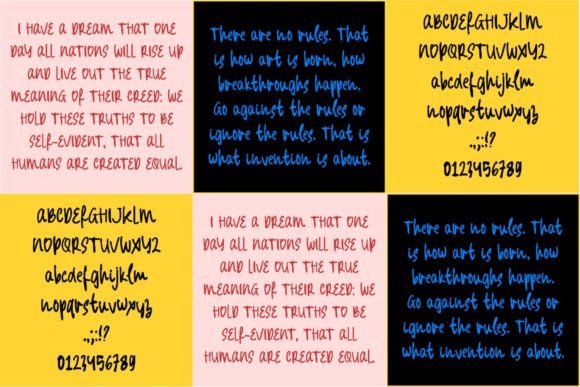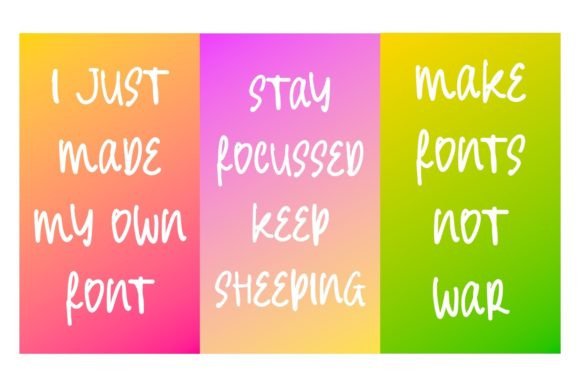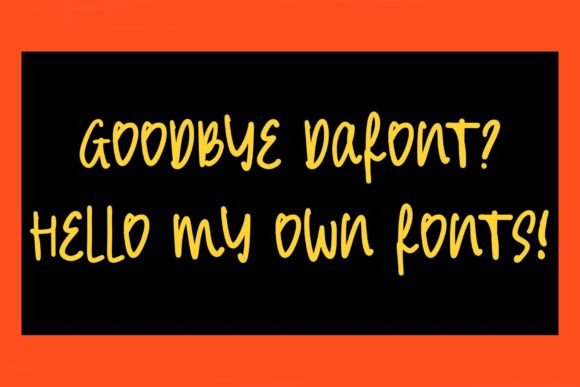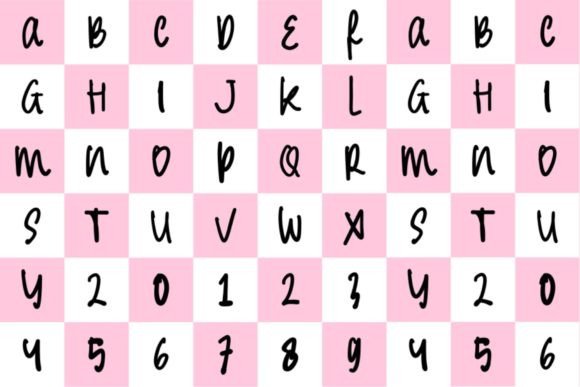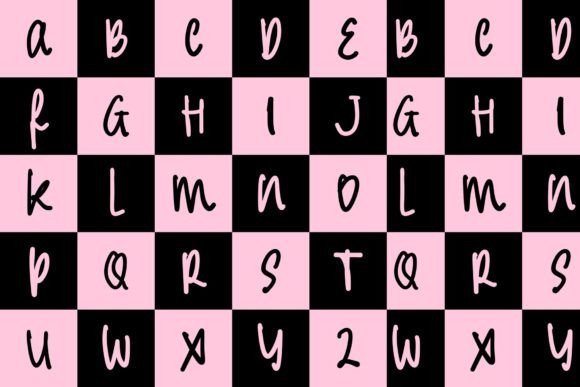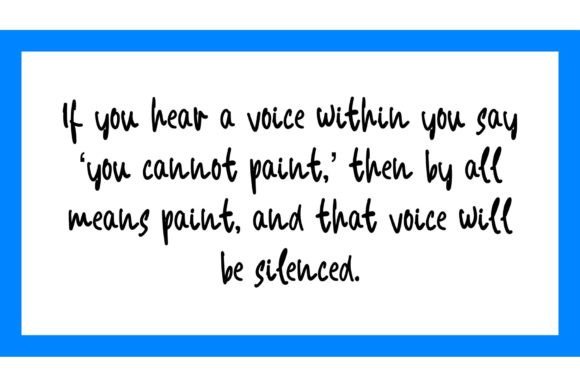
When Words Take Center Stage: Unveiling Artistkid Font
You’ve spent hours brainstorming, sketching, and perfecting your design, but something’s missing. The words, the text, the font – it just doesn’t feel like you. That’s where Artistkid Font comes in – a simple, quirky, and adaptable handwritten font designed to add a relaxed touch to your creations.
Artistkid Font is more than just a font; it’s a way to express yourself through your words. With its informal style and casual vibe, it’s the perfect choice for designers who want to add a human touch to their projects. Whether you’re creating a blog post, a social media campaign, or a marketing brochure, Artistkid Font is sure to bring a smile to your readers’ faces.
- Unique Characteristics: Artistkid Font features a unique blend of hand-drawn and digital elements, creating a distinctive and eye-catching aesthetic.
- Character Set: Includes a comprehensive character set, including uppercase and lowercase letters, numbers, and special characters.
Designer Review: Artistkid Font
I recently had the chance to work with the Artistkid Font, and I must say it’s a unique addition to any design project. ✨ One thing I appreciate about this font is its playful and hand-drawn feel, which adds a touch of whimsy to any text. The font’s irregularities and flourishes make it perfect for projects that need a bit of personality.
Here are some of the features I like about Artistkid Font:
- ✨ Hand-drawn feel: The font’s imperfections give it a human touch, making it feel more authentic and relatable.
- ✨ Customizable: The font comes in a range of weights and styles, making it easy to adapt to different design needs.
- ✨ Unique: Artistkid Font stands out from more traditional fonts, making it perfect for projects that need to make a statement.
- ⚠️ Limited legibility: The font’s irregularities can make it difficult to read at smaller sizes or in certain contexts.
- ⚠️ Limited consistency: The font’s variations can make it challenging to maintain a consistent design language.
Overall, I think Artistkid Font is a great addition to any designer’s toolkit. While it may have some limitations, its unique personality and customizable options make it a valuable asset for projects that need a bit of flair.
Tips for Getting the Most Out of Artistkid Font
Experiment with different font sizes, colors, and styles to create unique and visually appealing designs.
Combine Artistkid Font with other creative elements, such as graphics and illustrations, to add depth and interest to your designs.
Artistkid Font is perfect for creative and artistic projects, such as:
- Graphic design and illustration
- Typography and font experimentation
- Artistic posters and prints
Alternatives to Artistkid Font for Designers
Great Vibes is a beautiful, handwritten font that is perfect for creative projects. It has a unique, elegant feel that works well for invitations, posters, and other promotional materials. When to use: For projects that require a touch of sophistication and elegance.
Great Vibes compares to Artistkid Font in that it also has a handwritten feel, but it is more refined and sophisticated. While Artistkid Font is more playful, Great Vibes is more elegant and versatile.